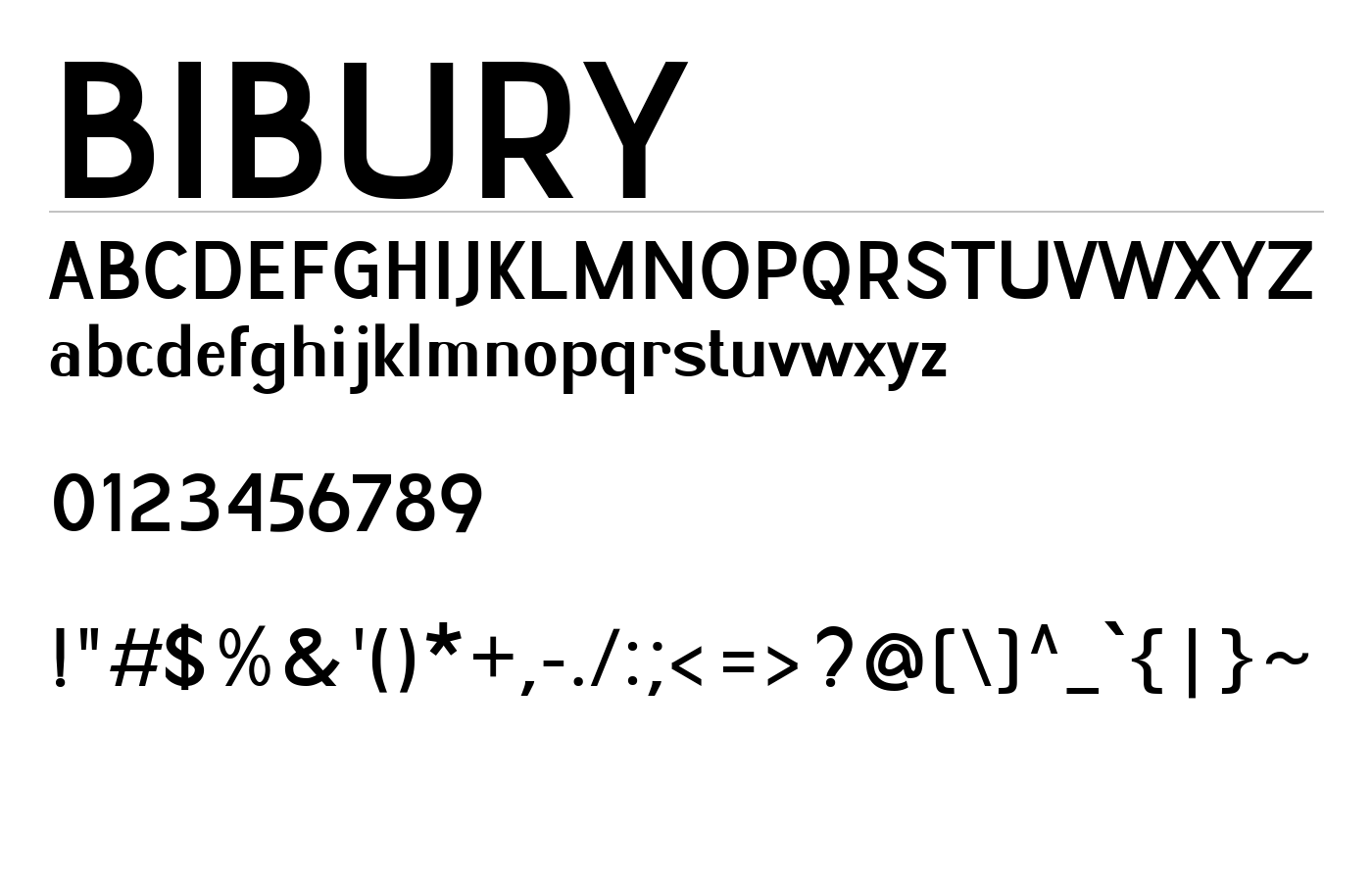
Bibury is a modern, clean sans serif font with a balanced, upright stance and moderate contrast, offering strong legibility and a contemporary feel. Its slightly condensed width and simple geometric shapes make it ideal for professional branding, editorial headlines, and digital interfaces where clarity and subtle sophistication matter. This versatile typeface works well in both print and web, lending a polished yet approachable tone to a variety of design projects.
BIBURY Font